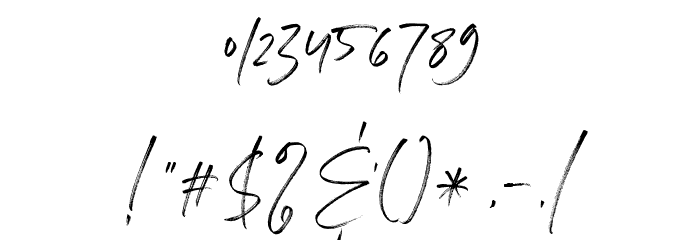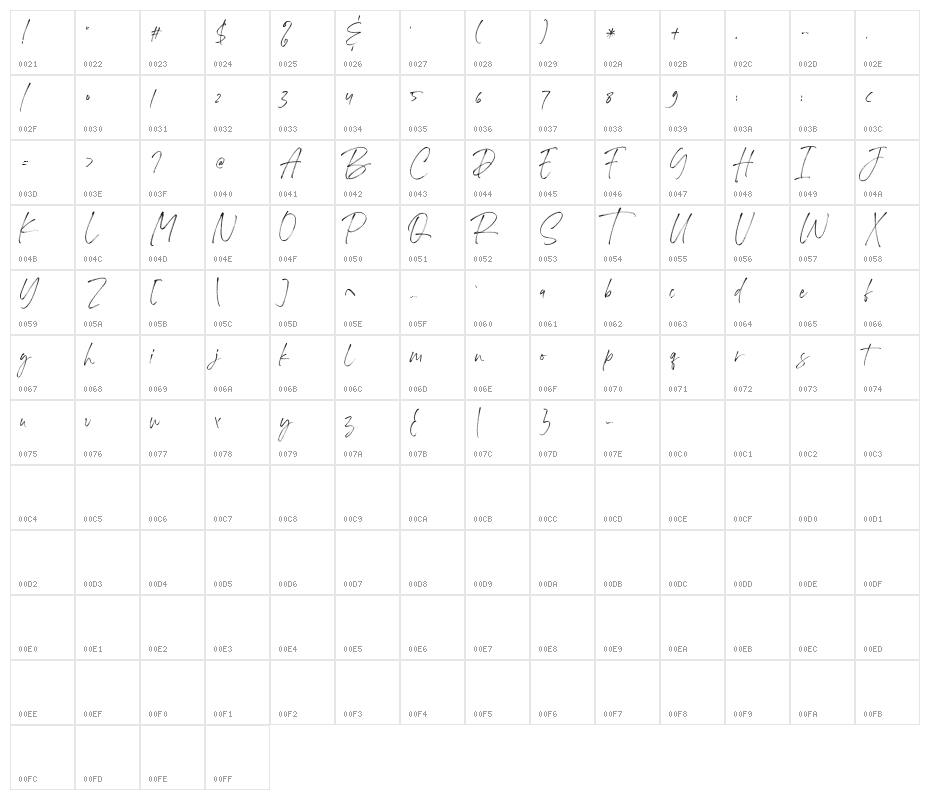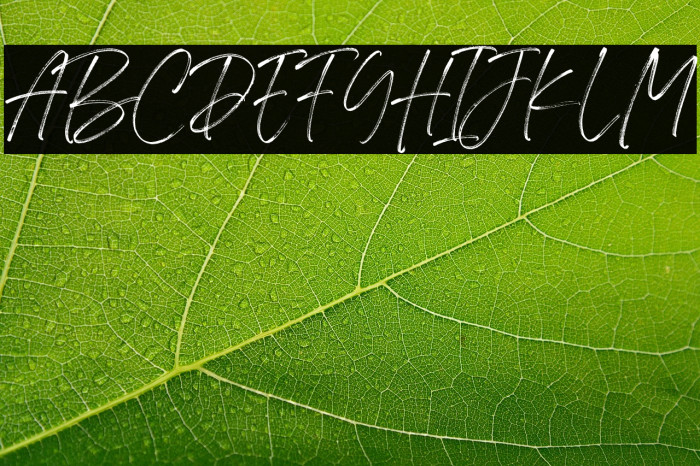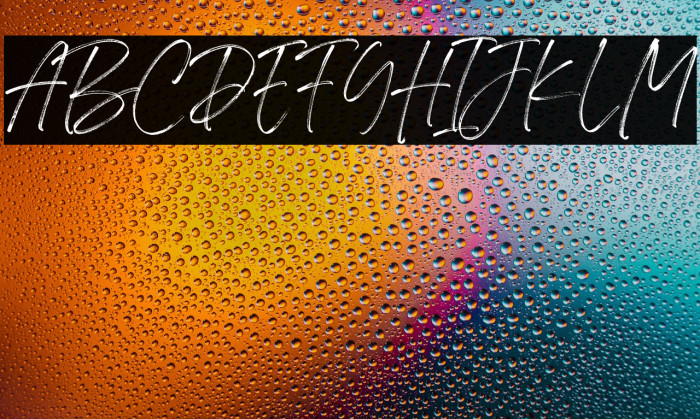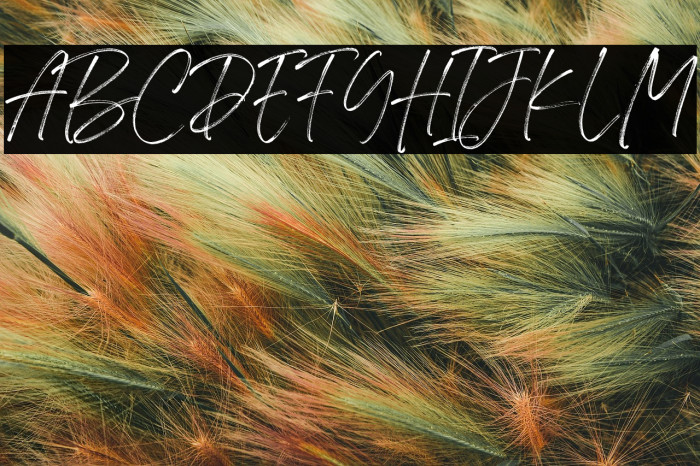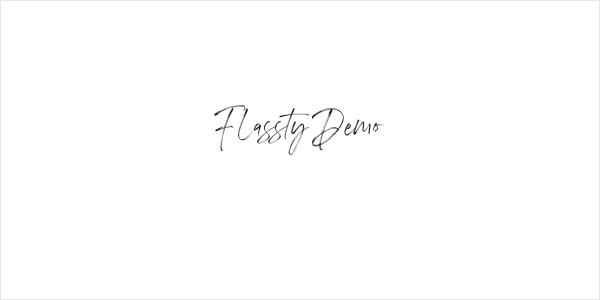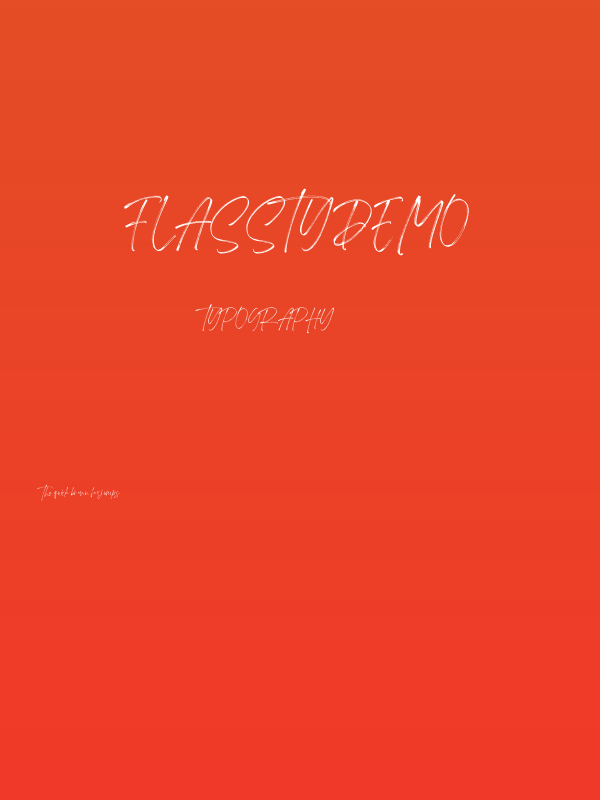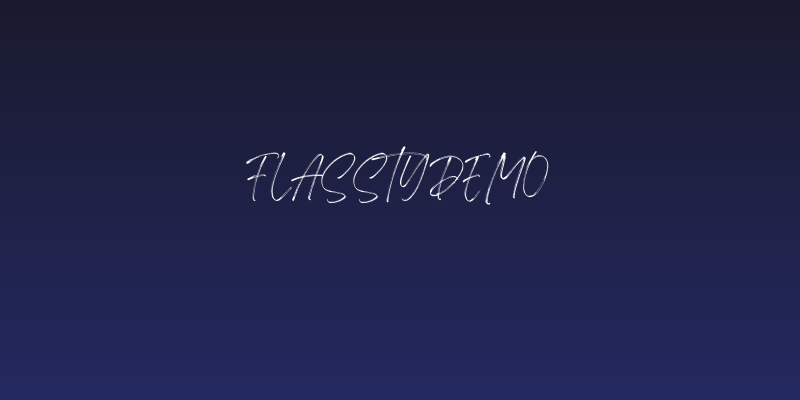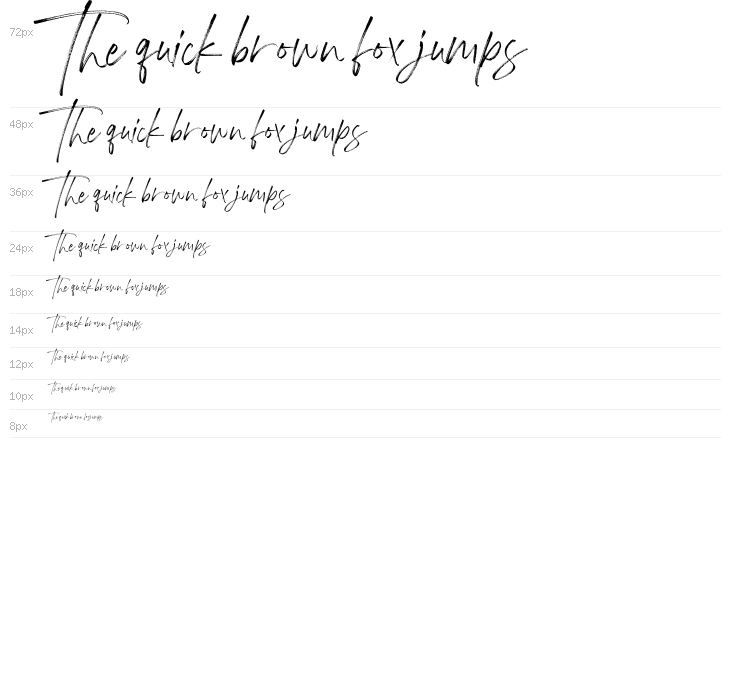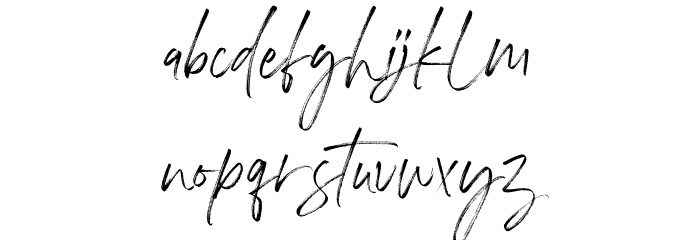
Flassty Demo Font
Flassty Demo Description
This font features a dynamic and expressive handwritten style, characterized by its fluid and organic strokes. The letters exhibit a natural flow, with varying thickness that adds a sense of movement and energy. The uppercase letters are bold and confident, while the lowercase letters maintain a more delicate and graceful appearance. The numerals and special characters are consistent with the overall style, ensuring a cohesive look across all elements. This font's unique charm lies in its imperfect yet intentional design, making it ideal for creative and artistic projects.